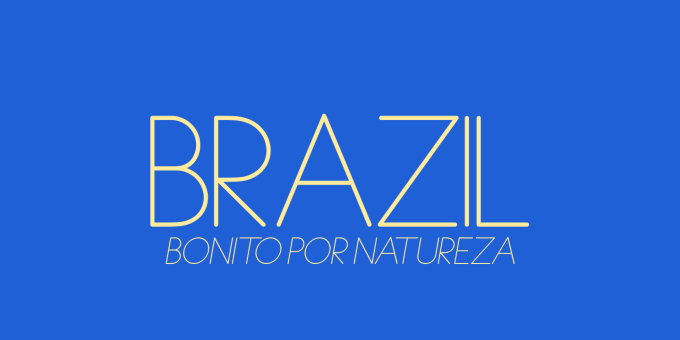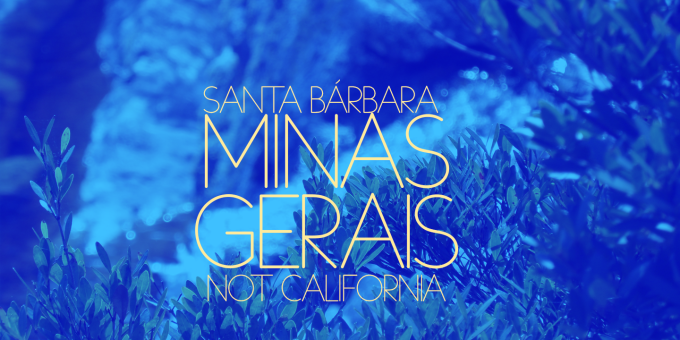
Duase
Duase is a geometric monoline sans-serif font developed in 2012 by Álvaro Thomáz.
The amazing fact is that Duase is a display and a readable font.
Duase it’s amazing for logotypes and ads.
The amazing fact is that Duase is a display and a readable font.
Duase it’s amazing for logotypes and ads.